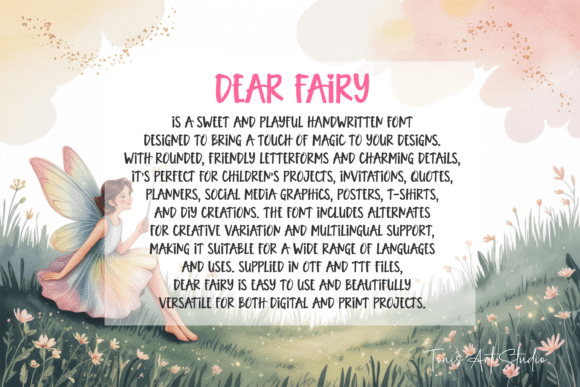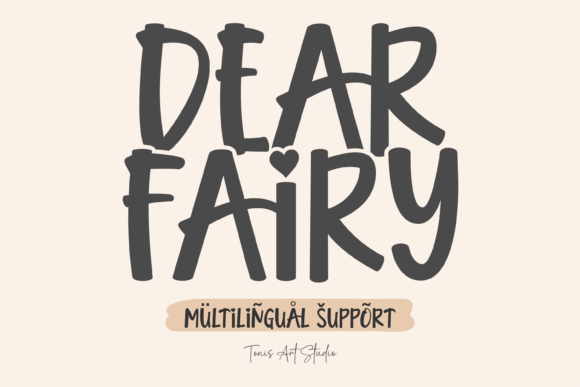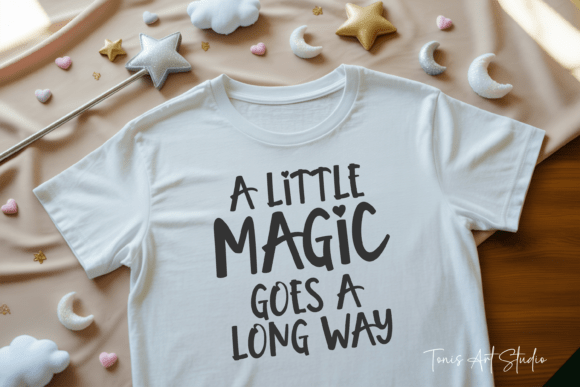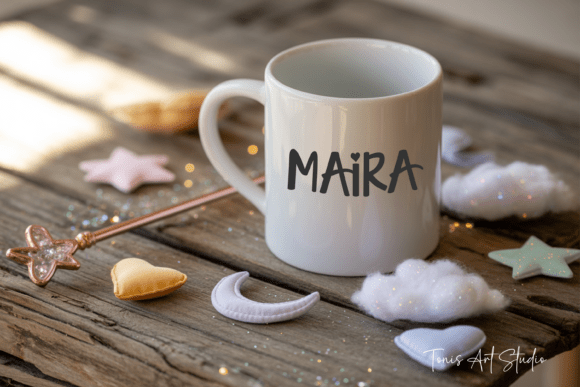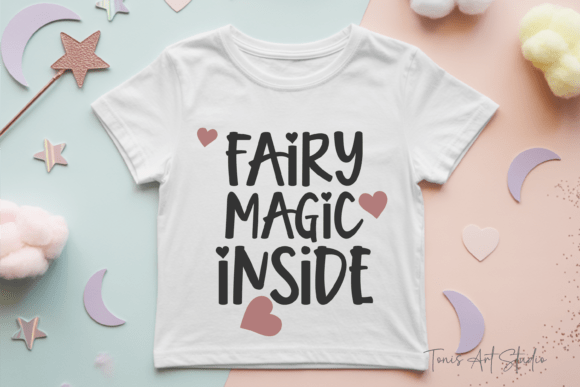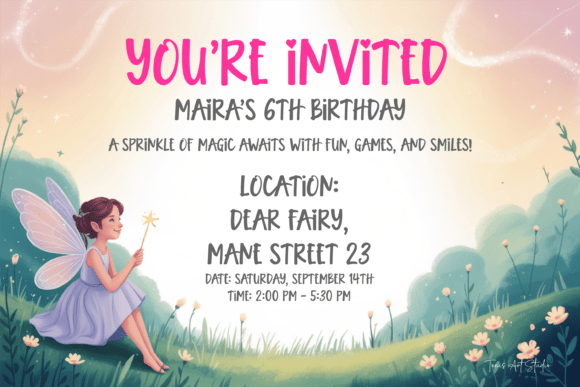
Introducing Dear Fairy Font: A Whimsical and Playful Handwritten Display Font
Are you looking for a font that can add a touch of magic to your designs? Look no further than Dear Fairy Font, a sweet and playful handwritten display font that’s perfect for bringing a soft, whimsical feel to your projects. With its rounded, friendly letterforms and charming details like tiny hearts, Dear Fairy Font feels warm, approachable, and full of fairy-tale personality.
Dear Fairy Font is versatile and can be used for a wide range of projects, including children’s projects, birthday invitations, nursery decor, classroom materials, quotes, planners, stickers, t-shirts, mugs, and creative Cricut or Silhouette crafts. Its playful style makes it ideal for girly designs, kids’ branding, teachers, and magical themes. Whether you’re a designer, crafter, or DIY enthusiast, Dear Fairy Font is sure to become a favorite in your collection.
Key Features of Dear Fairy Font
- Playful and Whimsical Design: Dear Fairy Font features rounded, friendly letterforms and charming details like tiny hearts, giving it a warm and whimsical feel.
- Multilingual Support: The font includes full multilingual support, making it suitable for a wide range of languages and projects.
- Alternates for Creative Variation: Dear Fairy Font includes alternates for creative variation, allowing you to customize your designs and add a personal touch.
Why Choose Dear Fairy Font?
Dear Fairy Font is a unique and versatile font that’s perfect for designers and crafters who want to add a touch of magic to their projects. Its playful and whimsical design makes it ideal for a variety of projects, from children’s designs to magical themes. The font’s multilingual support and alternates for creative variation make it a great choice for projects that require customization and flexibility.
Tips for Using Dear Fairy Font
- Pair with Other Fonts: Dear Fairy Font pairs well with other fonts, so feel free to experiment with different combinations to find the perfect look for your project.
- Use for Digital and Print Projects: The font works beautifully for both digital and print use, making it perfect for a wide range of projects.
- Customize with Alternates: Use the font’s alternates to add a personal touch to your designs and make them stand out.
- Take Advantage of Multilingual Support: If you’re working on a project that requires multilingual support, Dear Fairy Font has got you covered.
Dear Fairy Font is a sweet and playful handwritten display font that’s perfect for adding a touch of magic to your designs. With its rounded, friendly letterforms and charming details like tiny hearts, it’s sure to bring a soft, whimsical feel to your projects. Whether you’re a designer, crafter, or DIY enthusiast, Dear Fairy Font is a great choice for a wide range of projects. So why wait? Download Dear Fairy Font today and start creating your own magical designs!